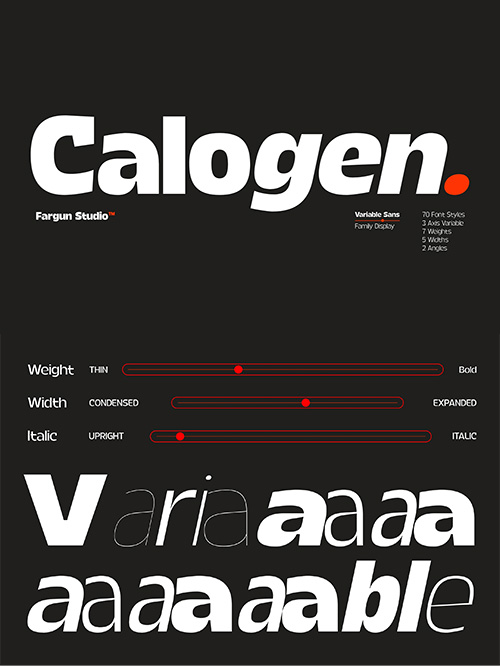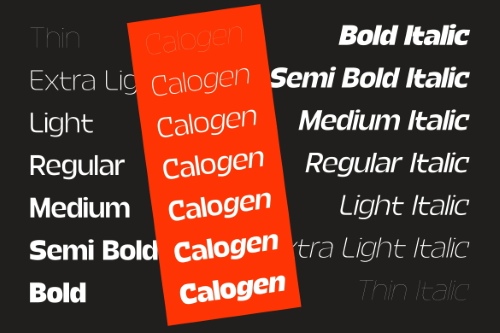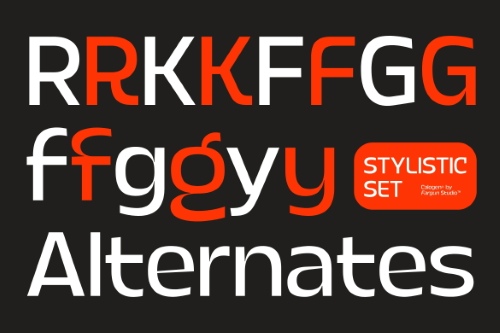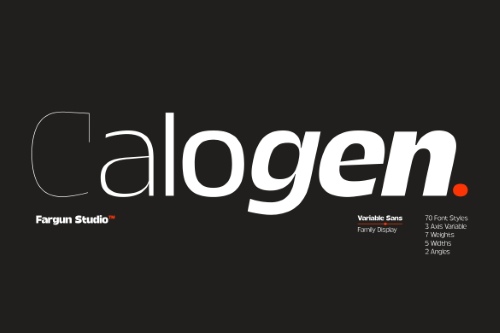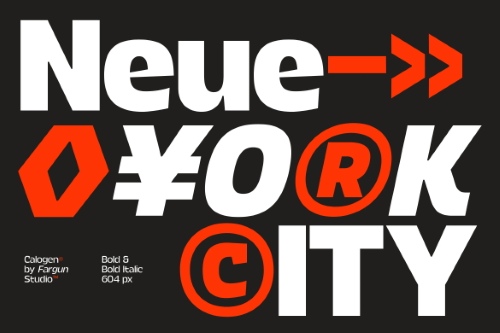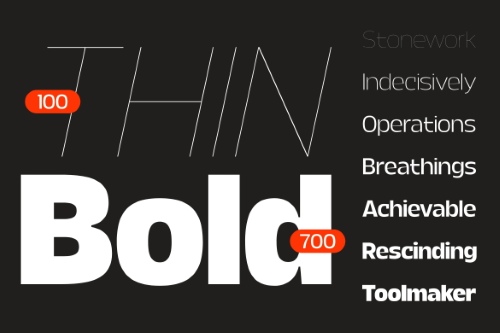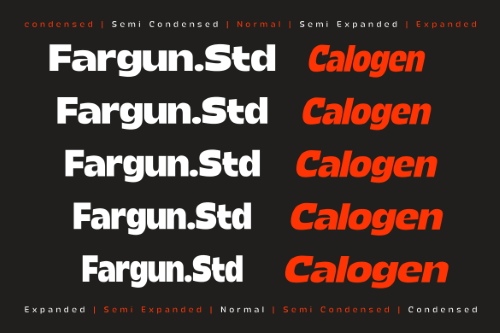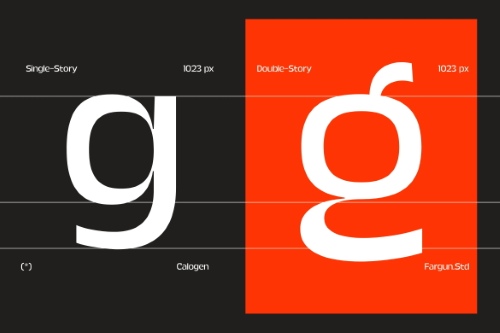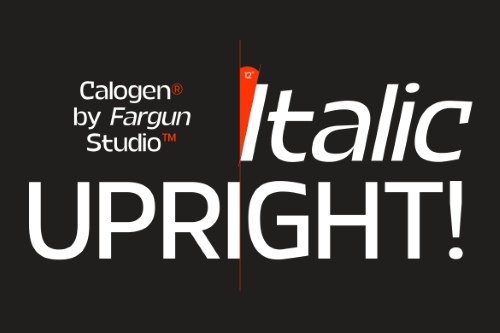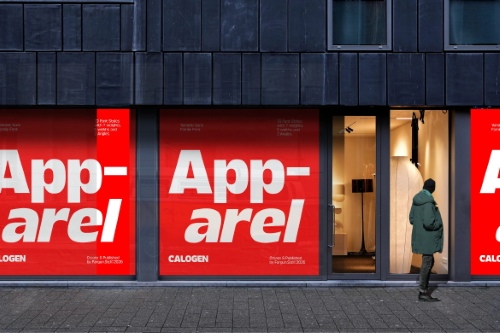
Calogen Grotesk Family
70 Static Styles + 1 Variable Font
- Calogen is a bold variable grotesk sans serif built for modern design. With its clean geometry, strong presence, and refined details, it delivers a confident look that works perfectly for branding, logos, headlines, editorial layouts, posters, packaging, and digital interfaces. Designed to be both powerful and versatile, Calogen gives you the flexibility to create everything from bold visual identities to clean contemporary typography, making it an essential typeface for today's creative projects.